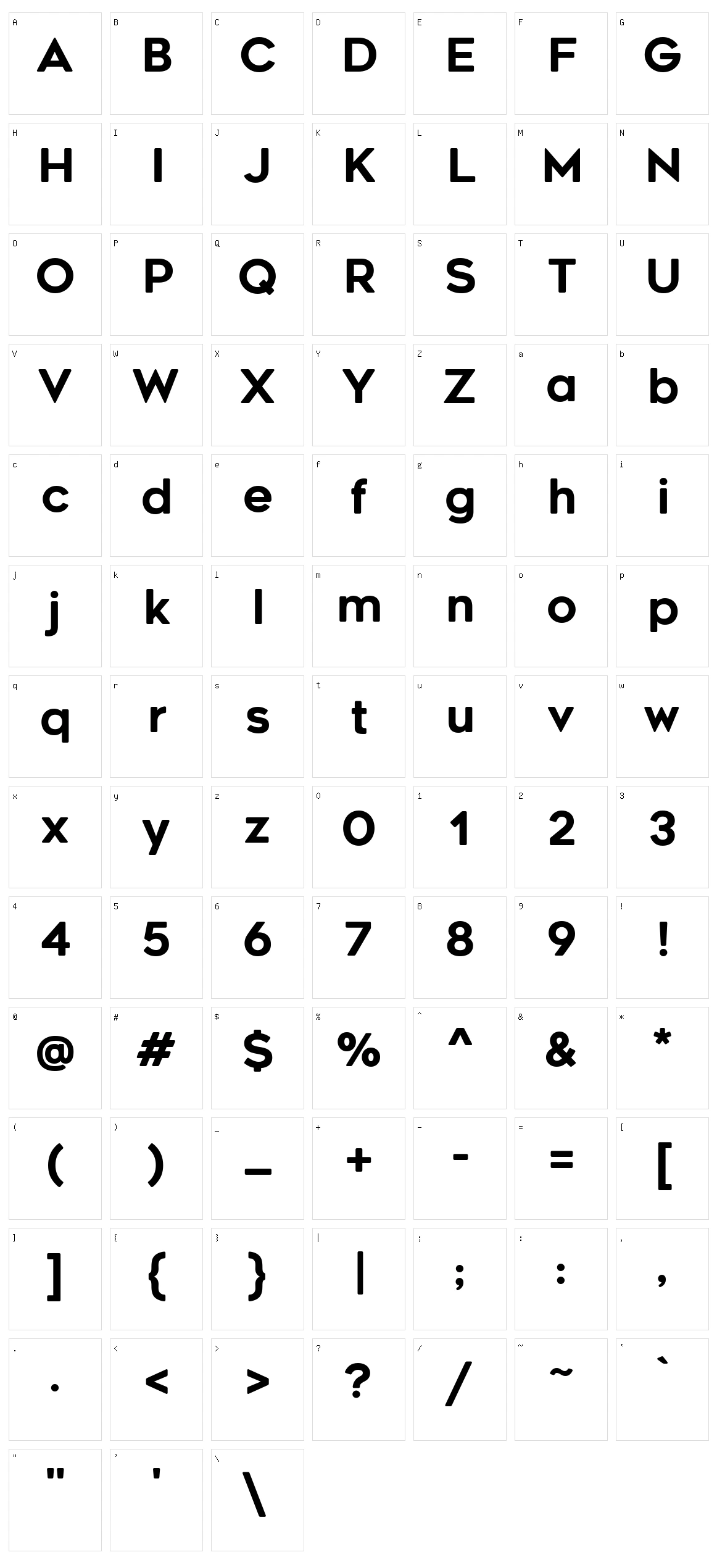
The free font Renogare Soft is carefully designed by Deepak Dogra, showcasing a thoughtful balance of creativity and usability and falls under the Sans serif font style. When you download the ZIP file, it contains only 220.6 KB of font files, making it lightweight and quick to download. Please review the license details below to understand permitted usage and distribution rights. If license information is not available, we recommend using this font for personal projects only or contacting the author directly for commercial usage permissions.